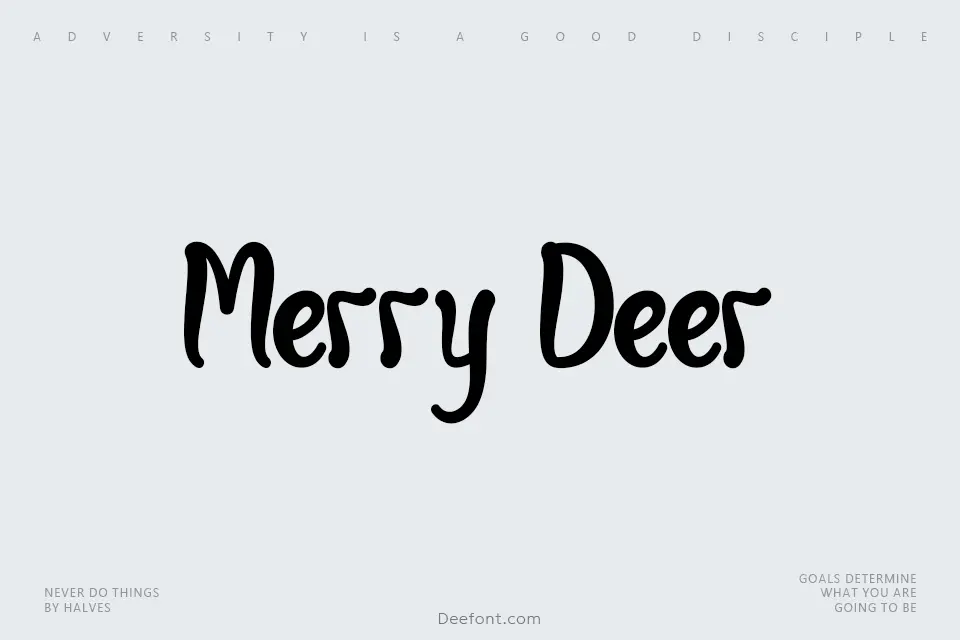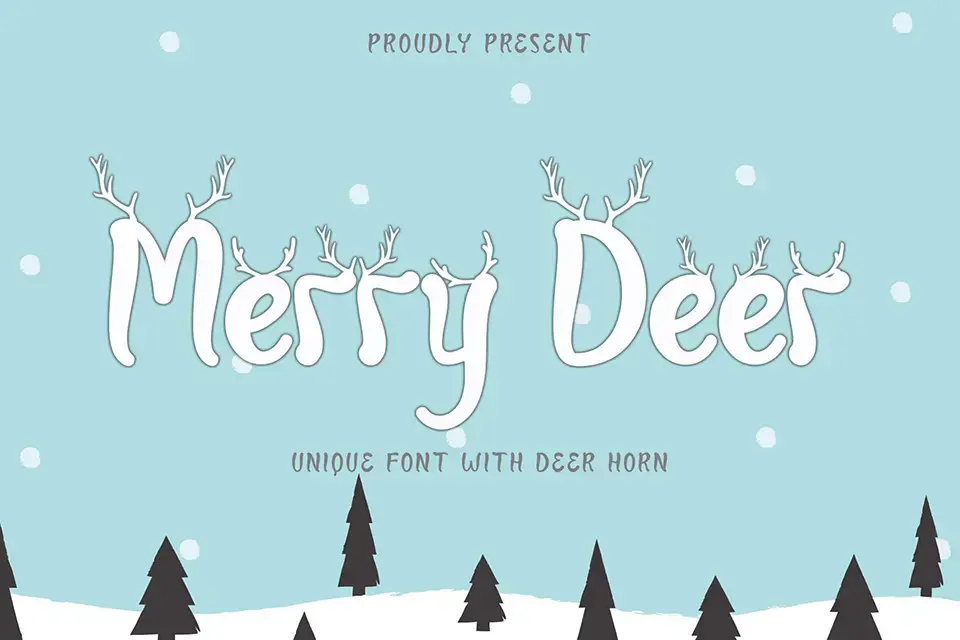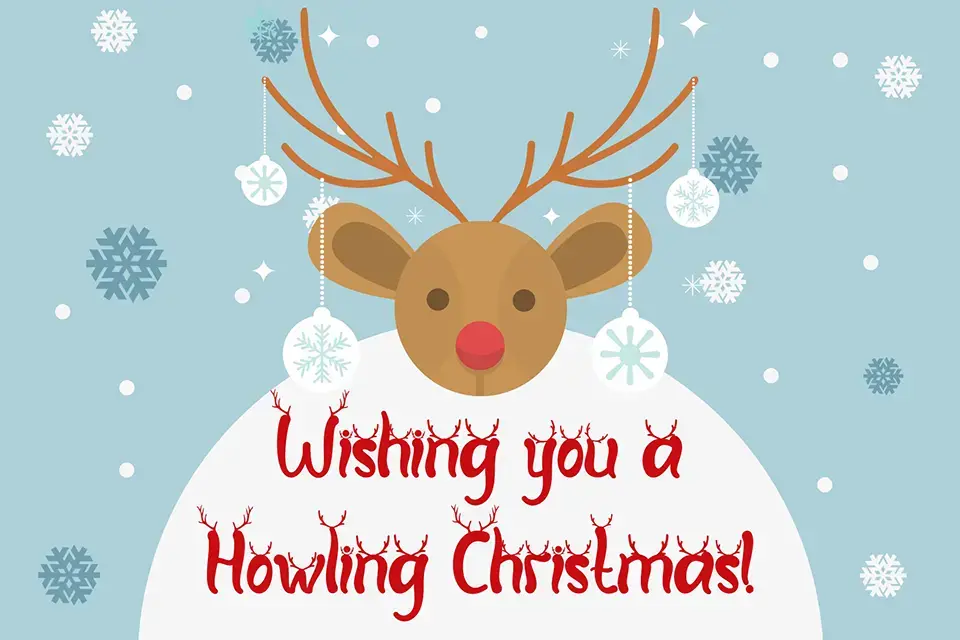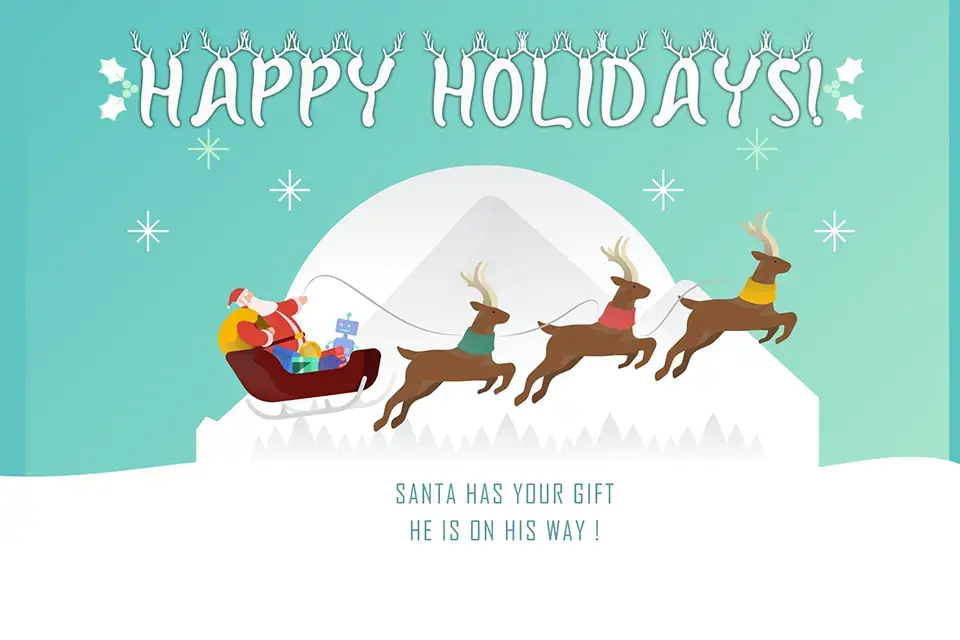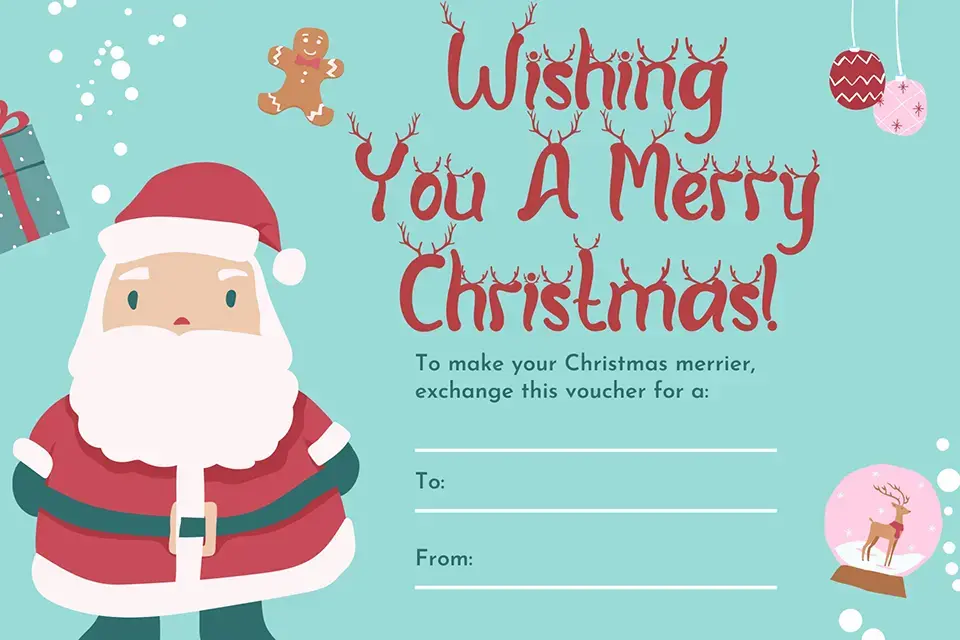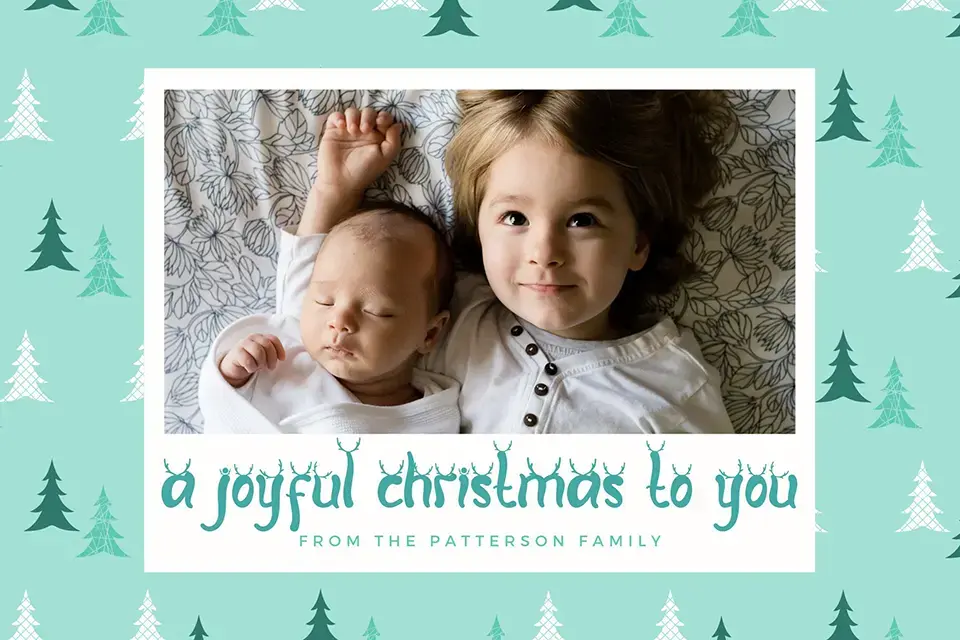
Merry Deer Font
Merry Deer is a cute and charming decorative typeface that brings festive joy to your projects. With its playful design and PUA encoding for easy glyph access, this whimsical font is perfect for holiday greetings, cheerful branding, and creative social media designs. The font’s sweet aesthetic makes it ideal for adding personality and warmth to any typographic application.
Designed by:Yoga Letter (Isroni Yoga Prasetya)